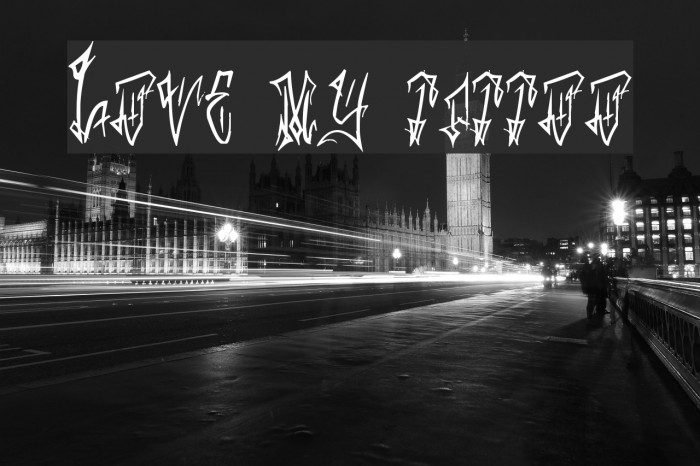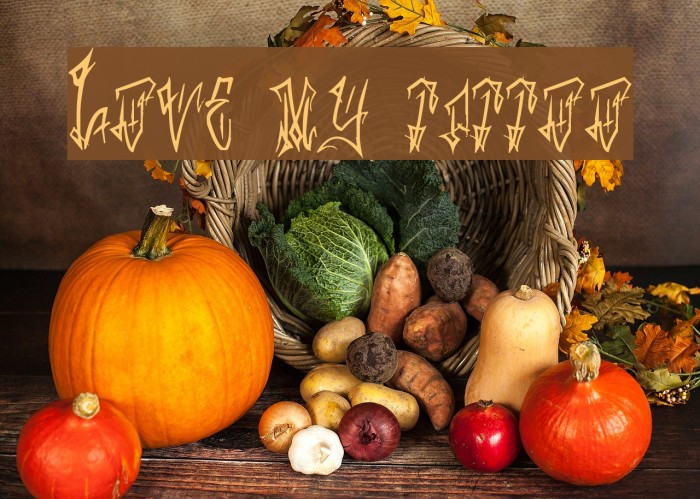
Love my tattoo Font
This font exudes a bold, edgy aesthetic with its sharp, angular lines and intricate detailing. Each character is designed with a unique flair, incorporating elements that resemble tattoo art, making it stand out with a rebellious and artistic vibe. The uppercase letters are particularly striking, with exaggerated serifs and pointed edges, while the lowercase letters maintain the same intensity but with slightly softer curves. Numbers and special characters follow the same stylistic approach, ensuring consistency throughout. The overall design is highly decorative, making it ideal for projects that require a strong visual impact.
A bold, tattoo-inspired font with sharp, angular lines and intricate details.
- Proposed Projects: Ideal for tattoo designs, album covers, posters, and any project requiring a bold, artistic statement.